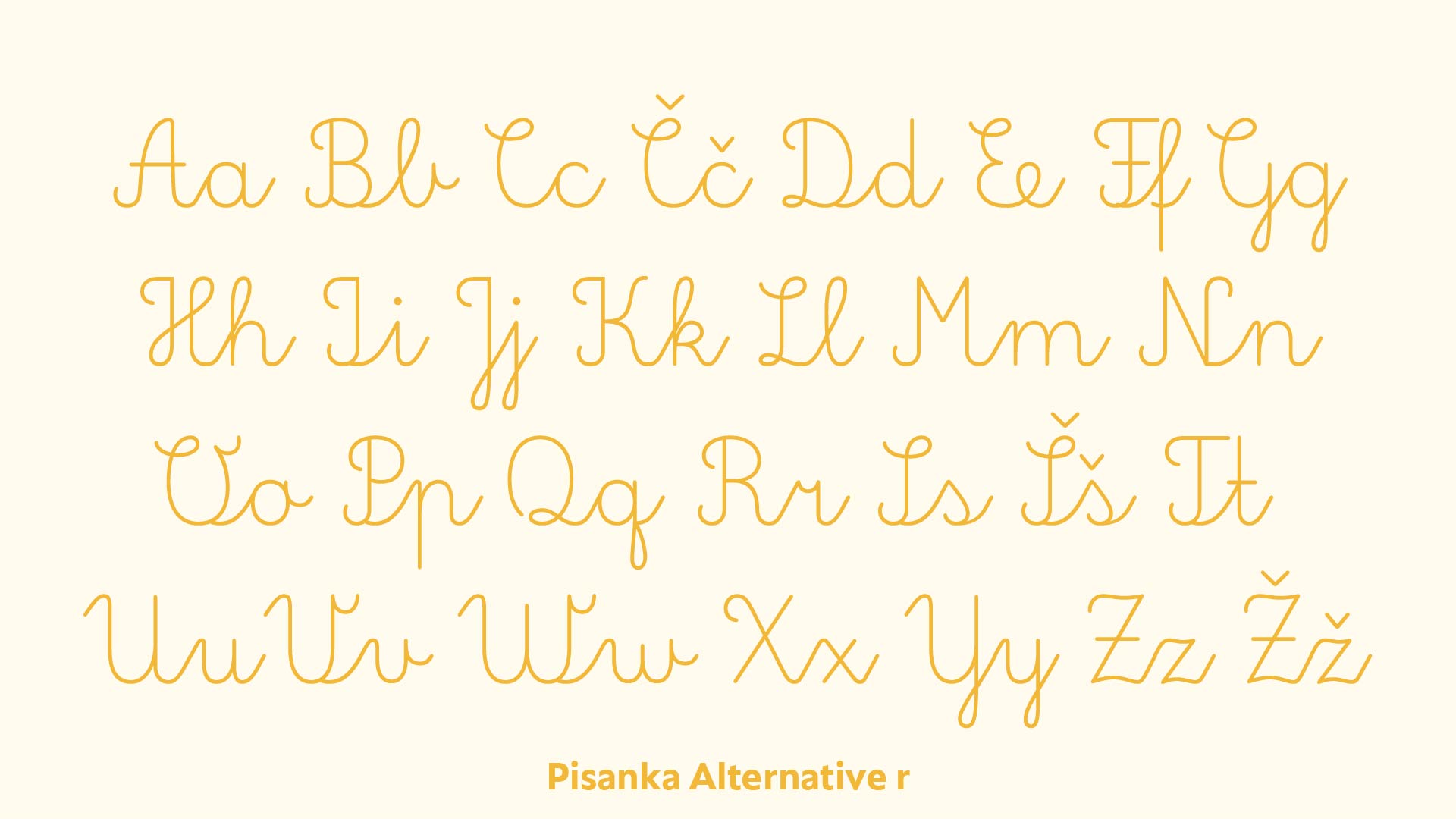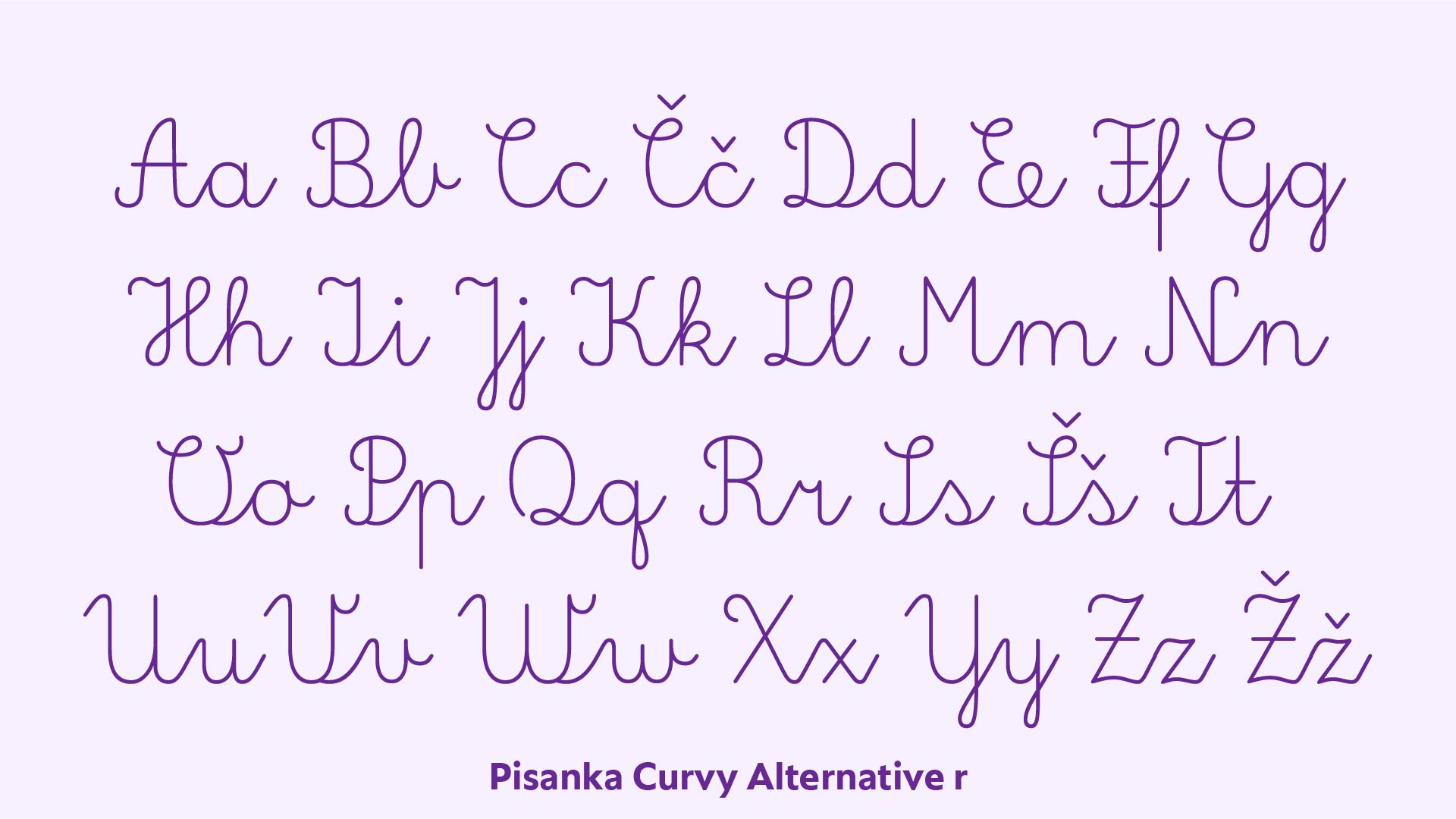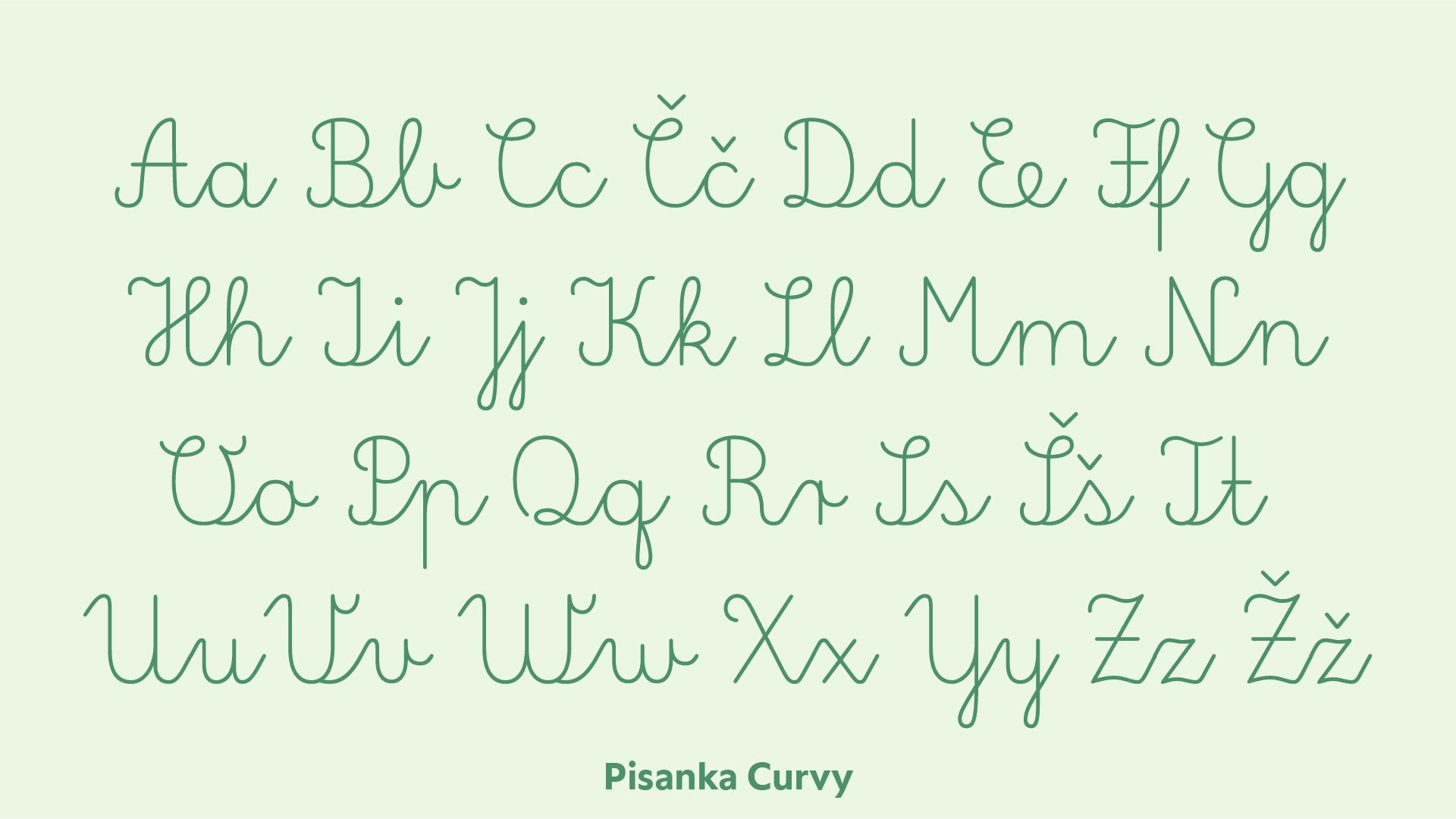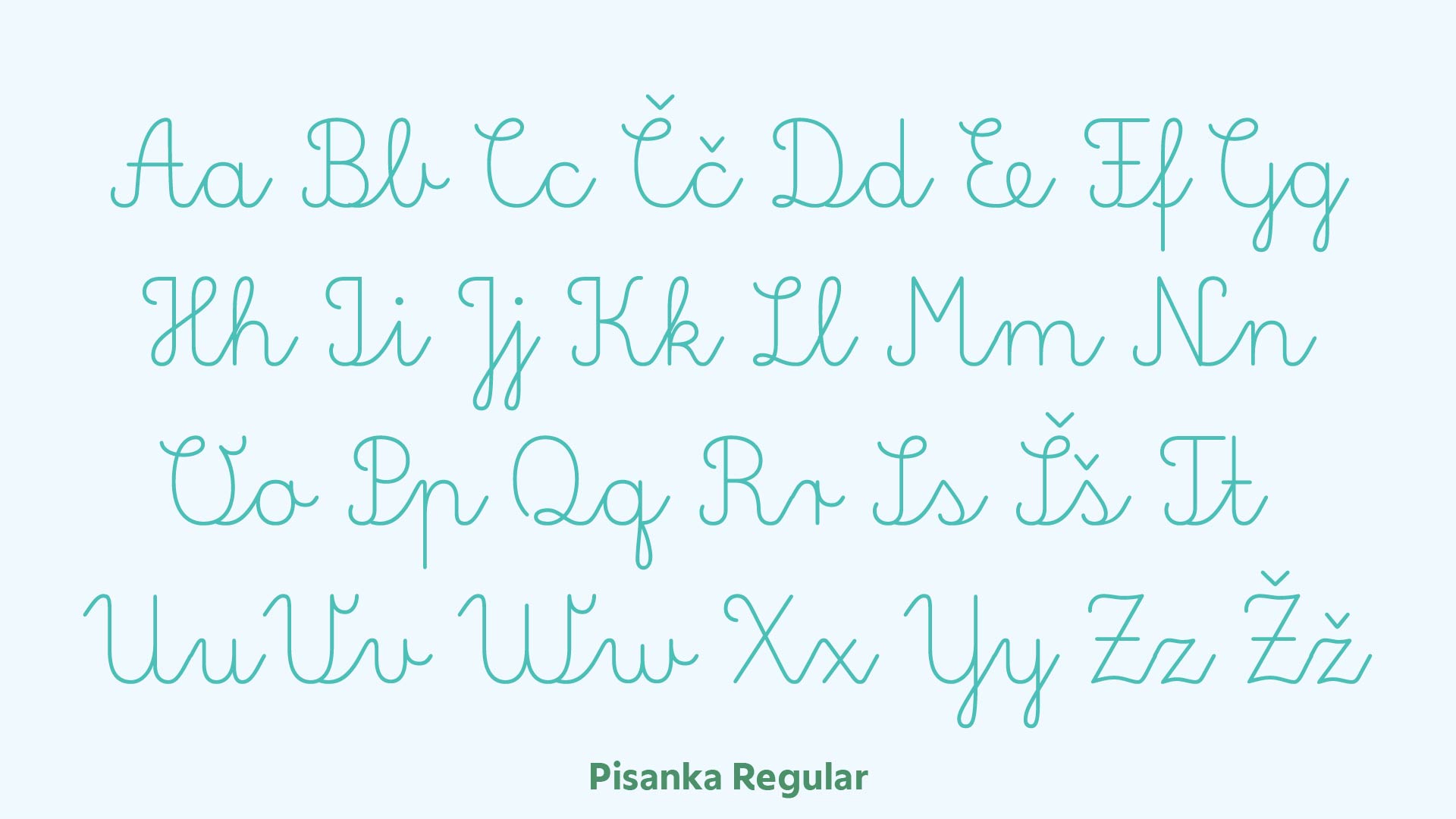
Pisanka is a digital typeface that reflects the handwritten letters taught in Slovene primary schools. Originally developed at the request of a group of teachers, it was designed to provide a standardized and digitalized version of the educational handwriting style used in classrooms once known as penmanship.
The typeface supports both the Slovene and English characters, as well as figures and essential punctuation. To replicate the fluidity of natural handwriting, Pisanka includes numerous alternative forms of letters that allow for smooth and authentic connections between characters. These variants cover initial, medial, and final forms, as well as isolated letter shapes. Pisanka serves as a valuable resource for teachers, parents and children interested in learn and presere the knolwedge of panmanship.
!Pisanka features contextual alternates and works seamlessly in software that supports open features such as Adobe and Canva.
Pisanka je digitalna pisava, ki odraža forme pisanih črk. Nastala je na pobudo skupine učiteljev in je bila zasnovana z namenom, da zagotovi standardizirano in digitalizirano različico pisave, ki se uči danes. Font podpira tako slovenske kot angleške znake, poleg tega pa vključuje tudi števke in ločila. Da bi čim bolje posnemala pisanje, Pisanka vsebuje številne alternativne oblike črk, nekatere črke imajo tudi 10 različnih form, ki omogočajo gladke in pristne povezave med znaki. Te različice zajemajo začetne, sredinske in končne forme, pa tudi samostojne oblike črk.
Iskra in Krpan na sprehod šla